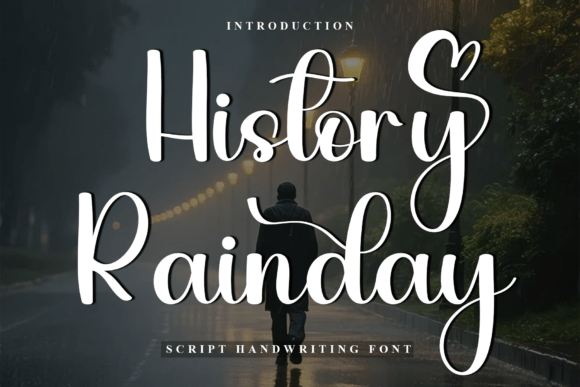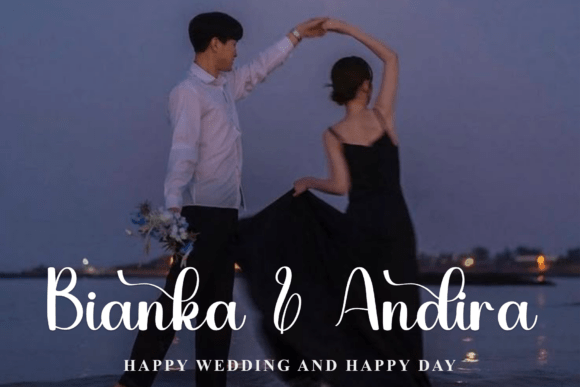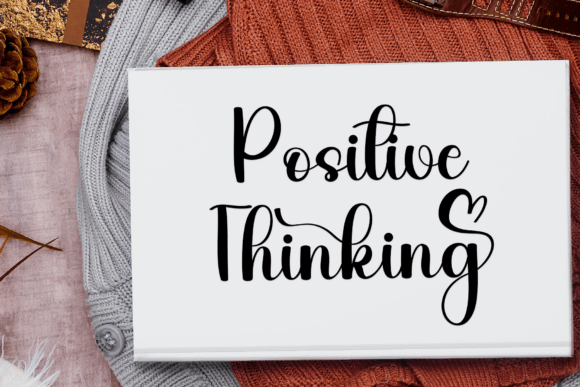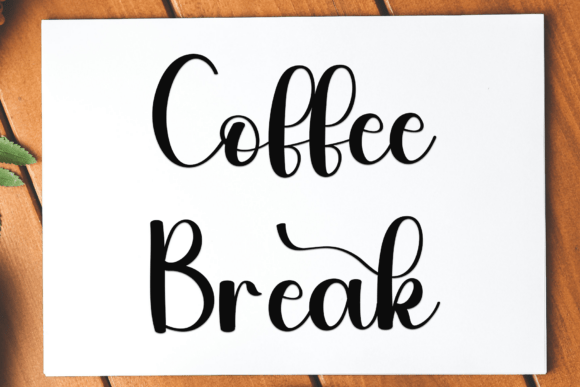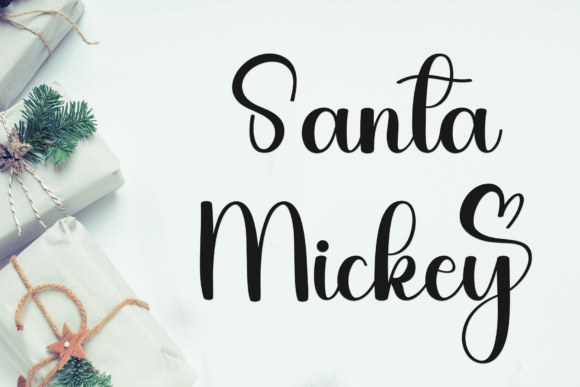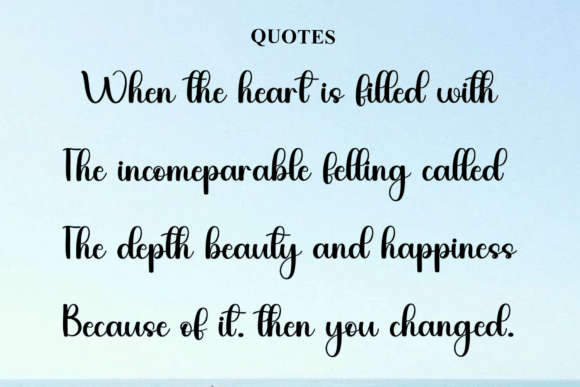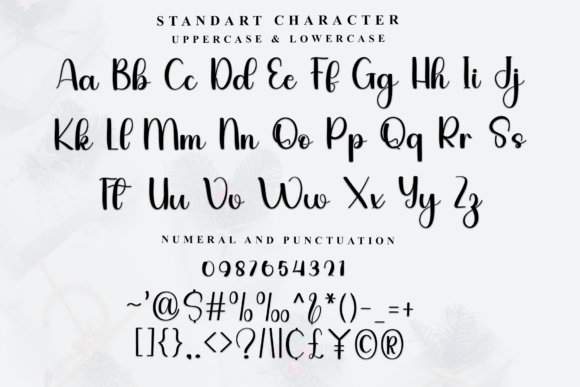
Unlock the Magic of the Holiday Season with History Rainday Font
There’s something special about designing for the holiday season – the twinkling lights, the warm fireplace, and the joy of sharing with loved ones. As you sit at your desk, brainstorming ideas for your next festive project, you know that the right font can make all the difference. That’s where History Rainday Font comes in – a delightful, merry typeface that captures the essence of the holiday season.
This enchanting font is perfect for greeting cards, gift tags, and any other project that needs a touch of whimsy and cheer. With its decorative elements and PUA-encoded glyphs, History Rainday Font makes it easy to add a personal touch to your designs. Whether you’re a seasoned designer or a holiday enthusiast, this font is sure to bring a smile to your face and a sparkle to your creations.
Key Features of History Rainday Font
- Font Style: History Rainday is a beautiful, handwritten script font with a vintage touch, perfect for adding a touch of elegance to your designs.
- Unique Characteristics: History Rainday features beautiful, flowing connections between letters, making it ideal for use in titles, quotes, and other text-based designs where a personal touch is desired.
Designer Review: History Rainday Font
Overall, I was excited to dive into the History Rainday Font, but it’s left me with mixed feelings. Let’s start with the positives ✨.
- The font’s unique blend of vintage and futuristic elements makes it perfect for projects that require a sense of nostalgia and innovation.
- The font is highly customizable, with a wide range of weights, styles, and sizes available, making it easy to adapt to different design requirements.
- The font’s wide language support and open-source nature make it an excellent choice for designers working with diverse content.
However, there are a few limitations that might deter some designers ⚠️.
- The font can be quite busy and overwhelming, particularly when used in large blocks of text.
- The font’s unique design may not be suitable for projects that require a clean and minimalist aesthetic.
- The font’s weight and style consistency can be inconsistent across different platforms and devices.
Overall, I’d say that the History Rainday Font is a solid choice for designers who want to add a touch of uniqueness to their projects. While it may not be perfect, its strengths make it worth considering, especially for those who value its customization options and wide language support.
For optimal results, use the History Rainday Font in conjunction with other vintage or distressed elements to create a cohesive look.
Experiment with different font sizes and colors to add visual interest to your design.
The History Rainday Font is ideal for:
Creating a vintage or distressed look in designs, such as posters, flyers, or business cards.
Adding a touch of nostalgia to digital products, such as ebooks or video titles.
Creating a unique and eye-catching headline or title in presentations or documents.